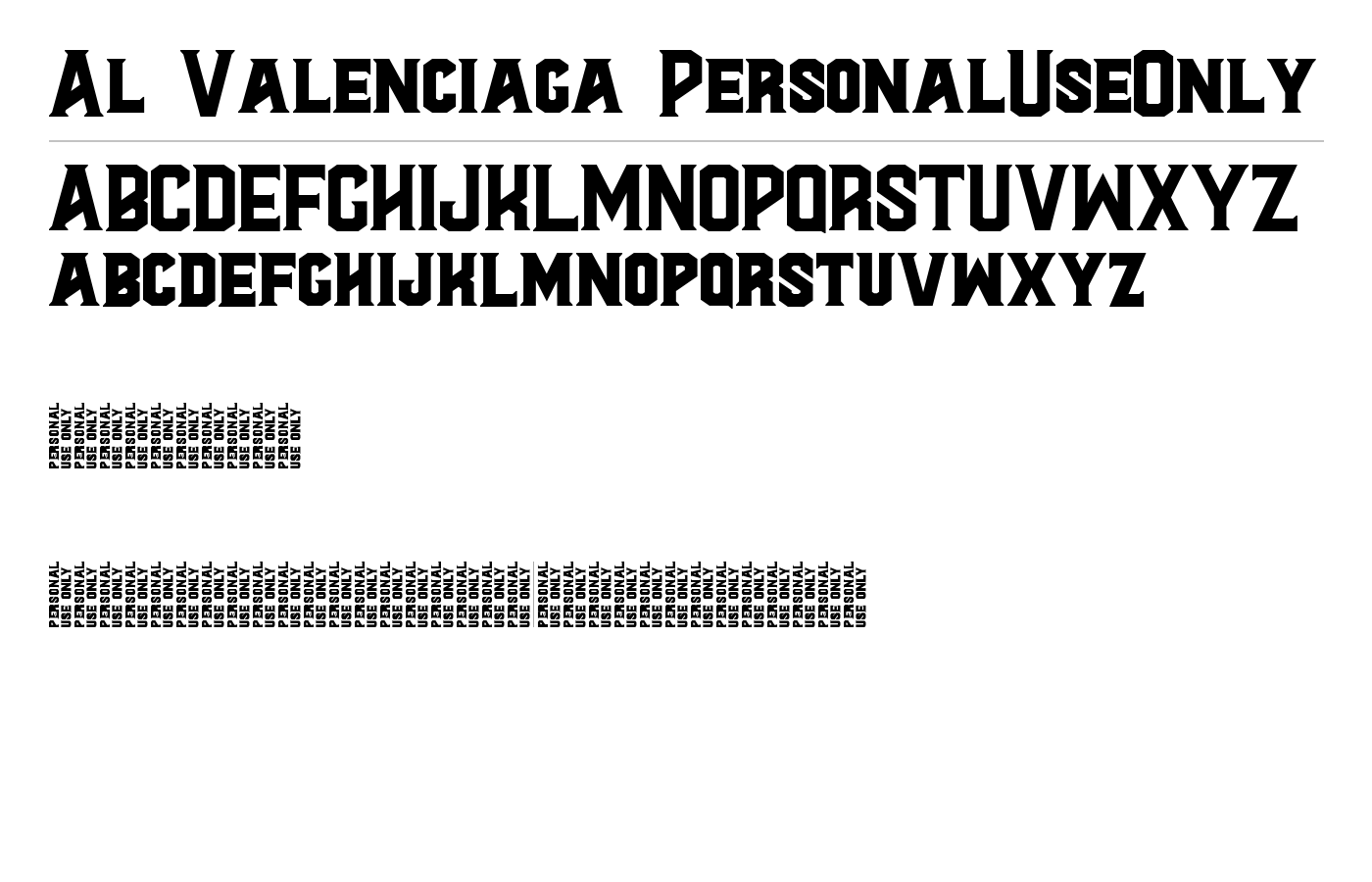
Al Valenciaga is a bold, condensed serif font with a strong, vintage flair. Its sharp, angular serifs and thick strokes create a commanding, somewhat aggressive presence that works well for impactful headlines, logos, and branding where a distinctive, edgy look is needed. This font’s unique style makes it perfect for designs seeking a bold statement with a modern yet classic twist.
Al Valenciaga PersonalUseOnly Font
About Al Valenciaga PersonalUseOnly Font